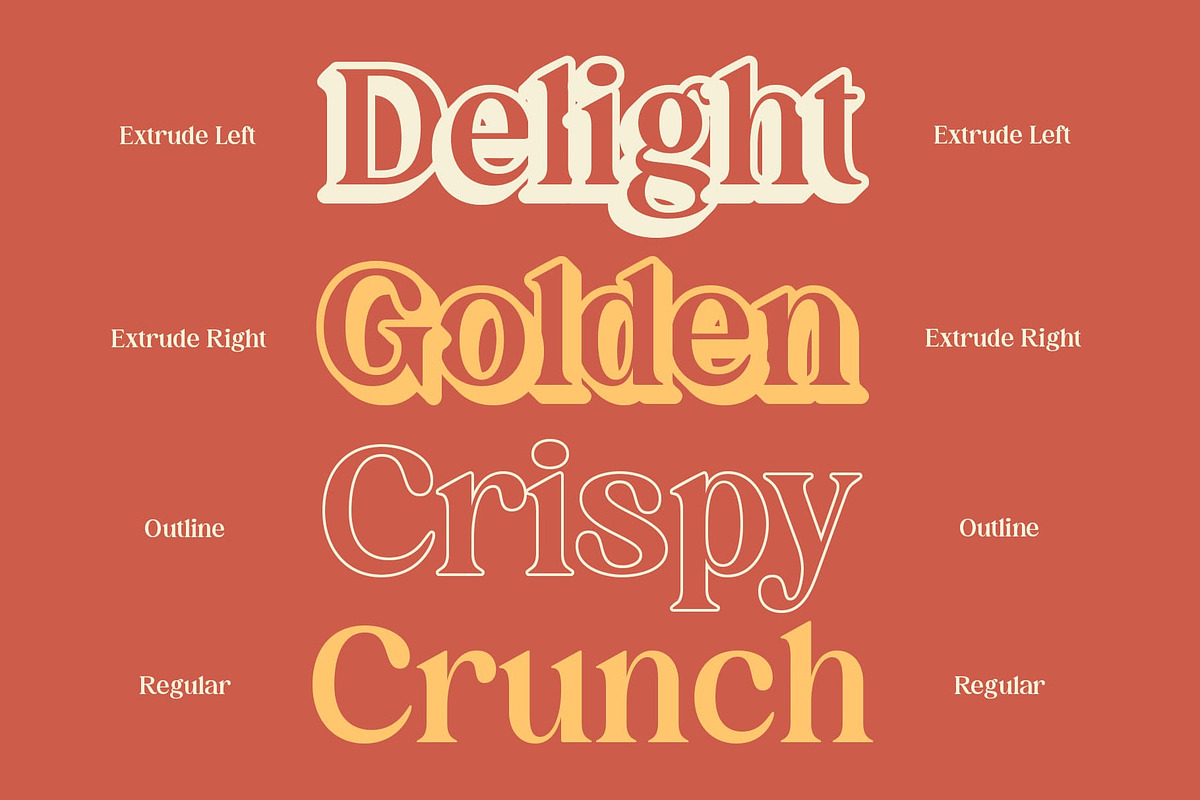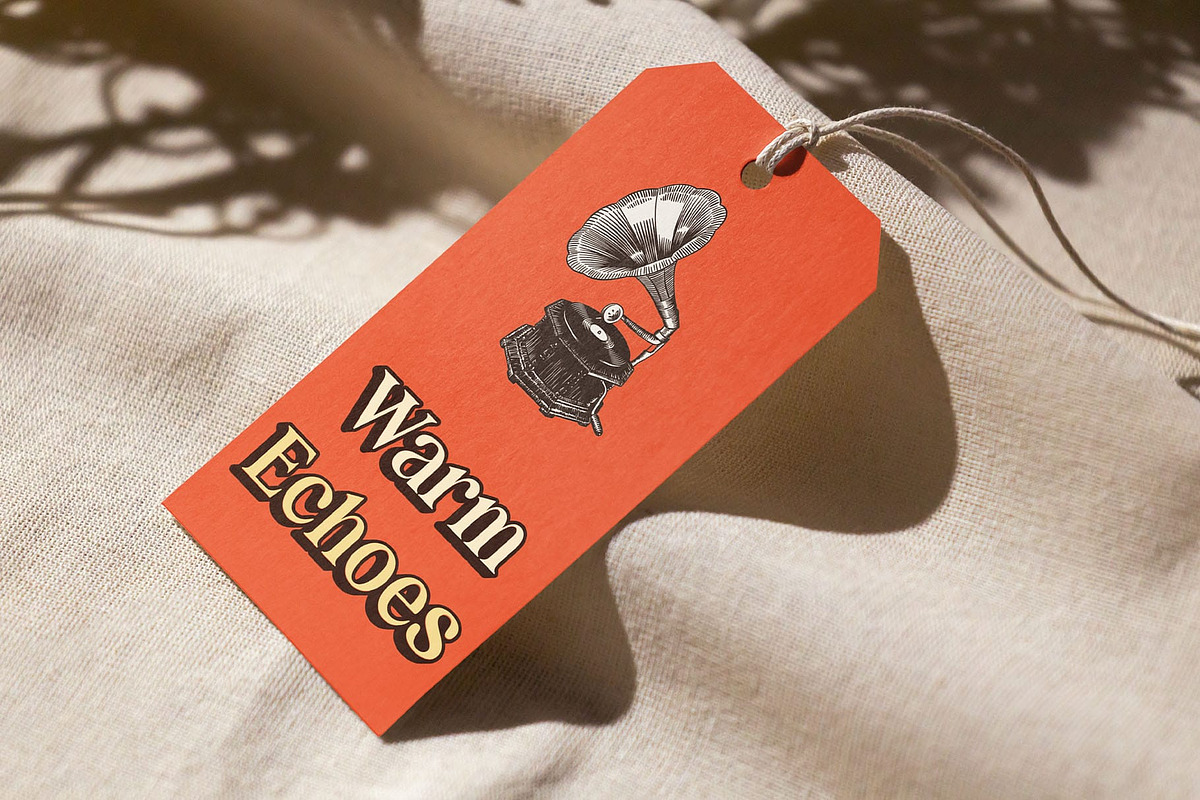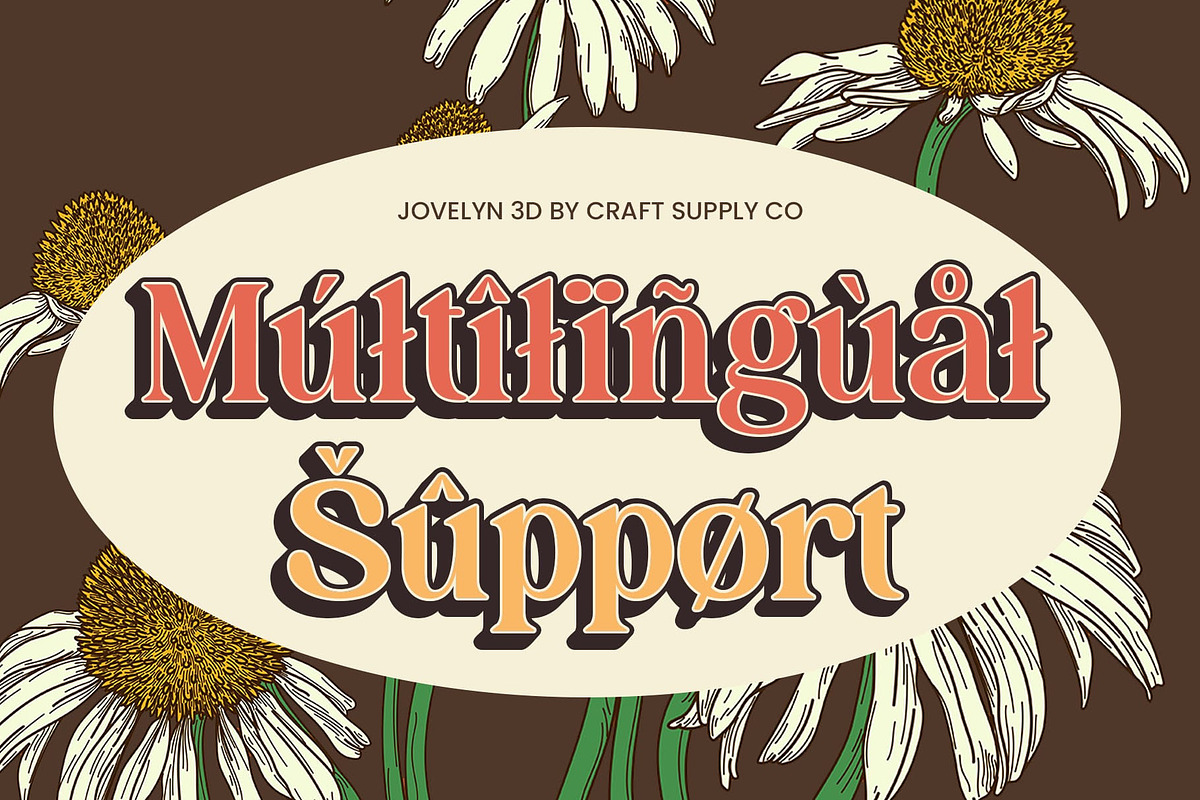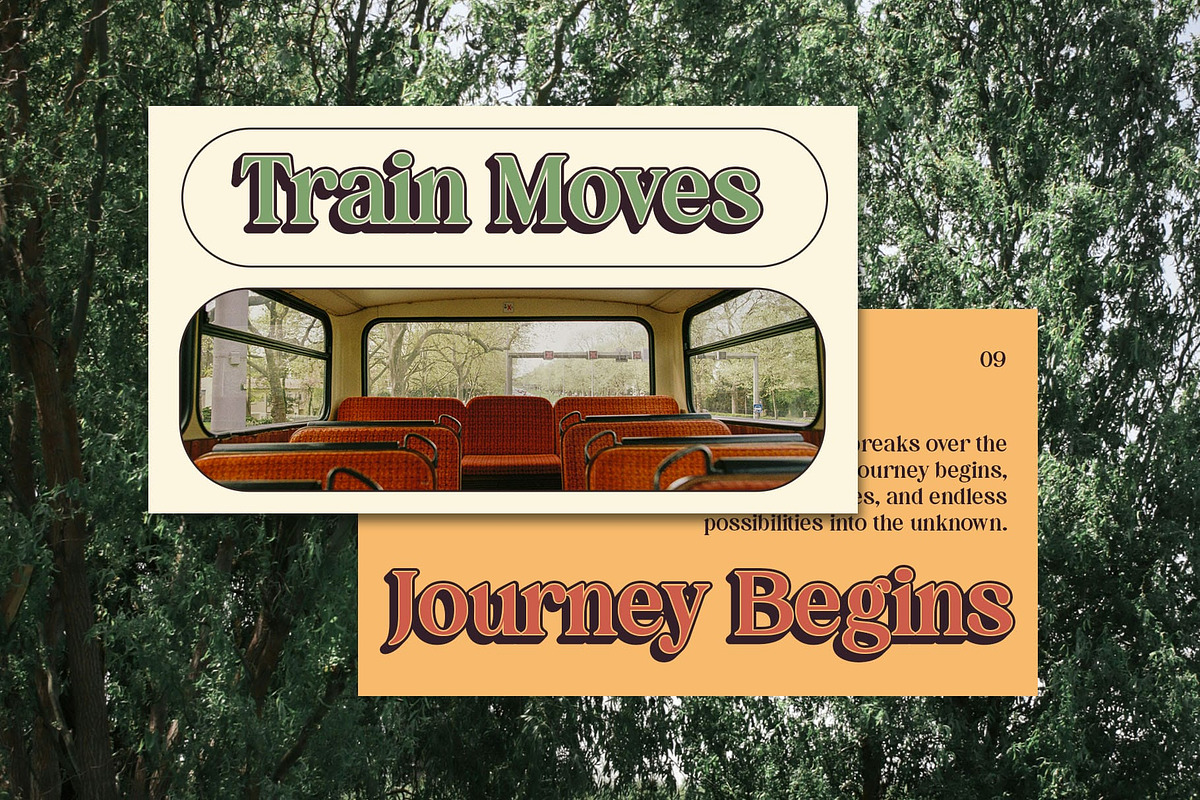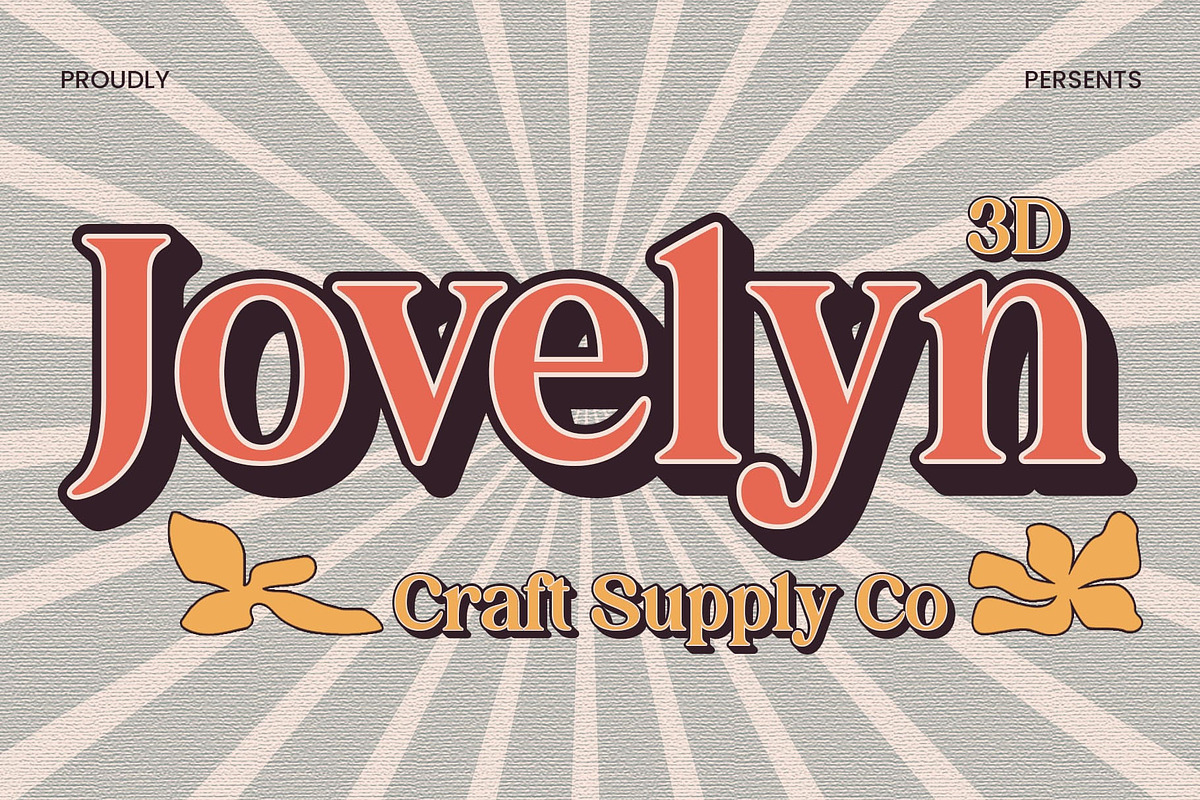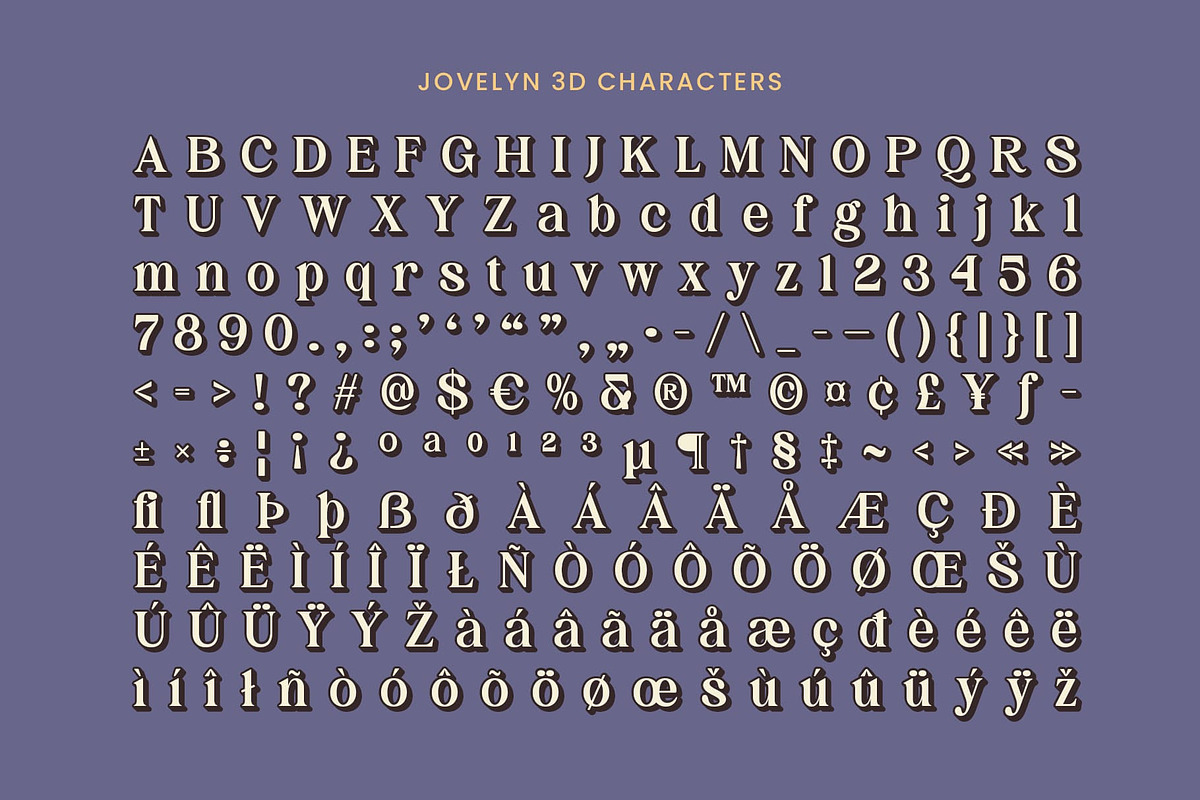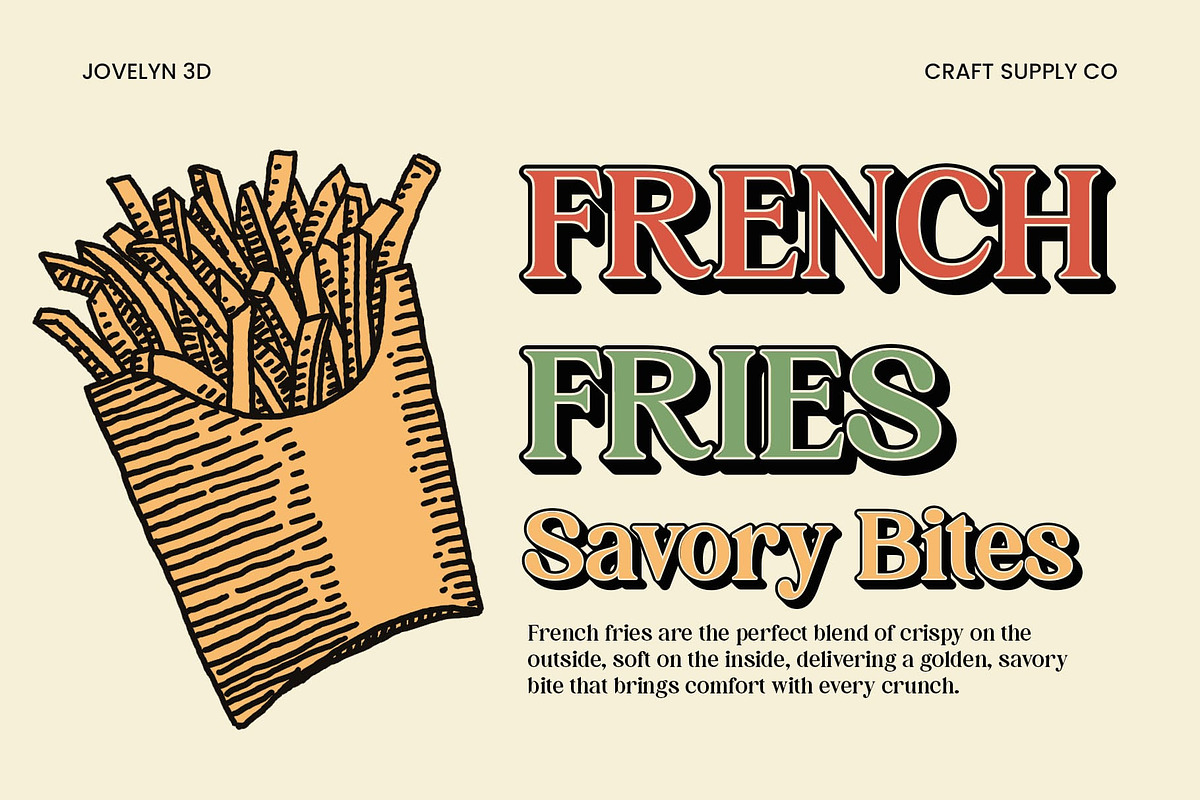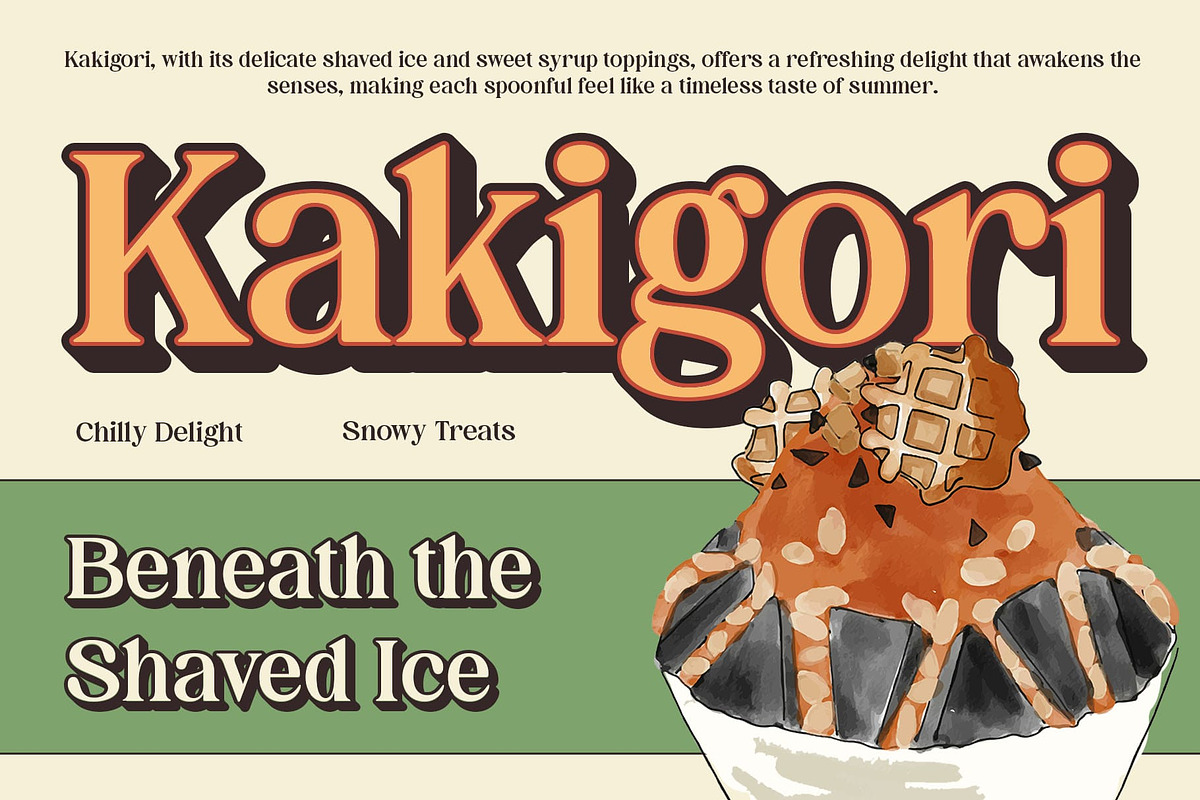
Jovelyn 3D
Jovelyn 3D Font – Vintage Charm Meets Modern Depth
Classic Serif with Retro Vibes Jovelyn 3D is a classic serif font that effortlessly captures the essence of retro design while maintaining a timeless appeal. The letterforms are inspired by vintage typography, with strong, bold serifs that evoke a sense of nostalgia and warmth. This font’s retro aesthetic is complemented by a clean, contemporary structure that adds a modern twist to its vintage charm.
Enhanced with Striking 3D Effect The font is further elevated with a bold 3D effect, giving each character added depth and dimension. The 3D styling enhances its visual presence, making it stand out while still preserving its retro vibe. This dimensionality brings a contemporary touch, perfect for designs that seek to combine the past and present in a cohesive and eye-catching way.
Perfect for Retro-Themed and Nostalgic Designs Ideal for designs that aim to evoke a sense of vintage nostalgia, Jovelyn 3D is the perfect font for retro-themed projects. Whether you’re creating posters, branding, or packaging, this font will add an authentic yet modern flair to your designs. Its bold, nostalgic feel makes it a standout choice for projects that require a timeless yet dynamic look.
- Jovelyn Regular
- Jovelyn Outline
- Jovelyn Extrude Right
- Jovelyn Extrude Left